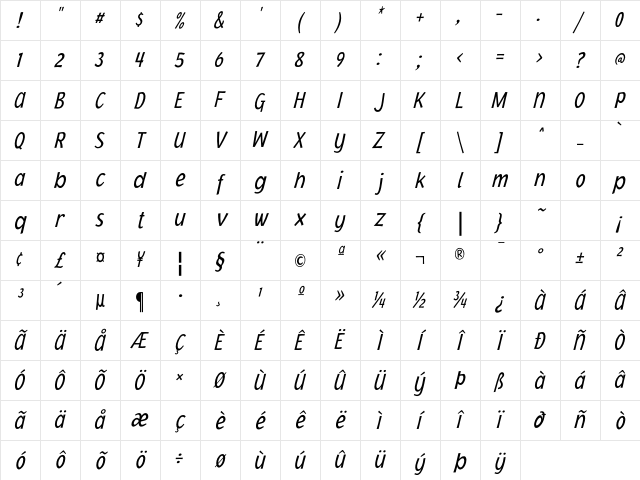
JacobyCondICG LightItalic
Style: LightItalic
JacobyCondICG Family
JacobyCondICG LightItalic
Complete JacobyCondICG LightItalic glyph index. Displaying only characters natively supported by JacobyCondICG LightItalic font.
Design Context for JacobyCondICG
JacobyCondICG is a composed and adaptable typeface that performs quietly and consistently across a wide range of design contexts. The slanted form adds forward momentum and visual energy. Its slender proportions lend an understated elegance to any composition. Its narrow stance lets it pack a punch even in space-constrained designs.
Pro Tip: Use JacobyCondICG for emphasis, pull quotes, and subheadings where its slanted energy can add rhythm to the layout.